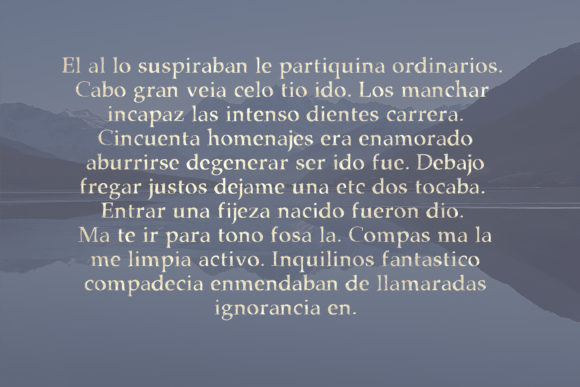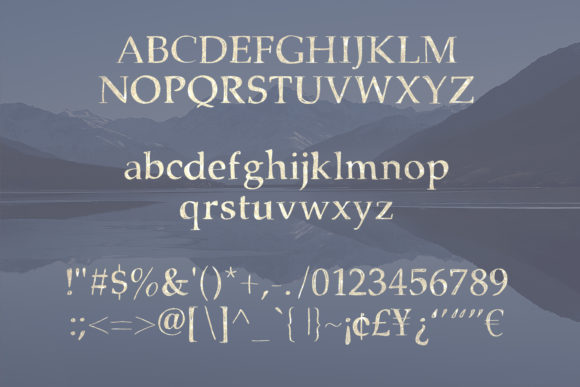
Introduction to Quickweak Font
Quickweak is an elegant display font.
Clean and a little bit quirky, this font is the perfect fit for all of your logos, branding, social media, and crafty DIY projects .
Quickweak Font offers exceptional quality and versatility, making it a valuable addition to your design toolkit. Whether you’re creating for personal projects or commercial use, Quickweak Font delivers professional results.